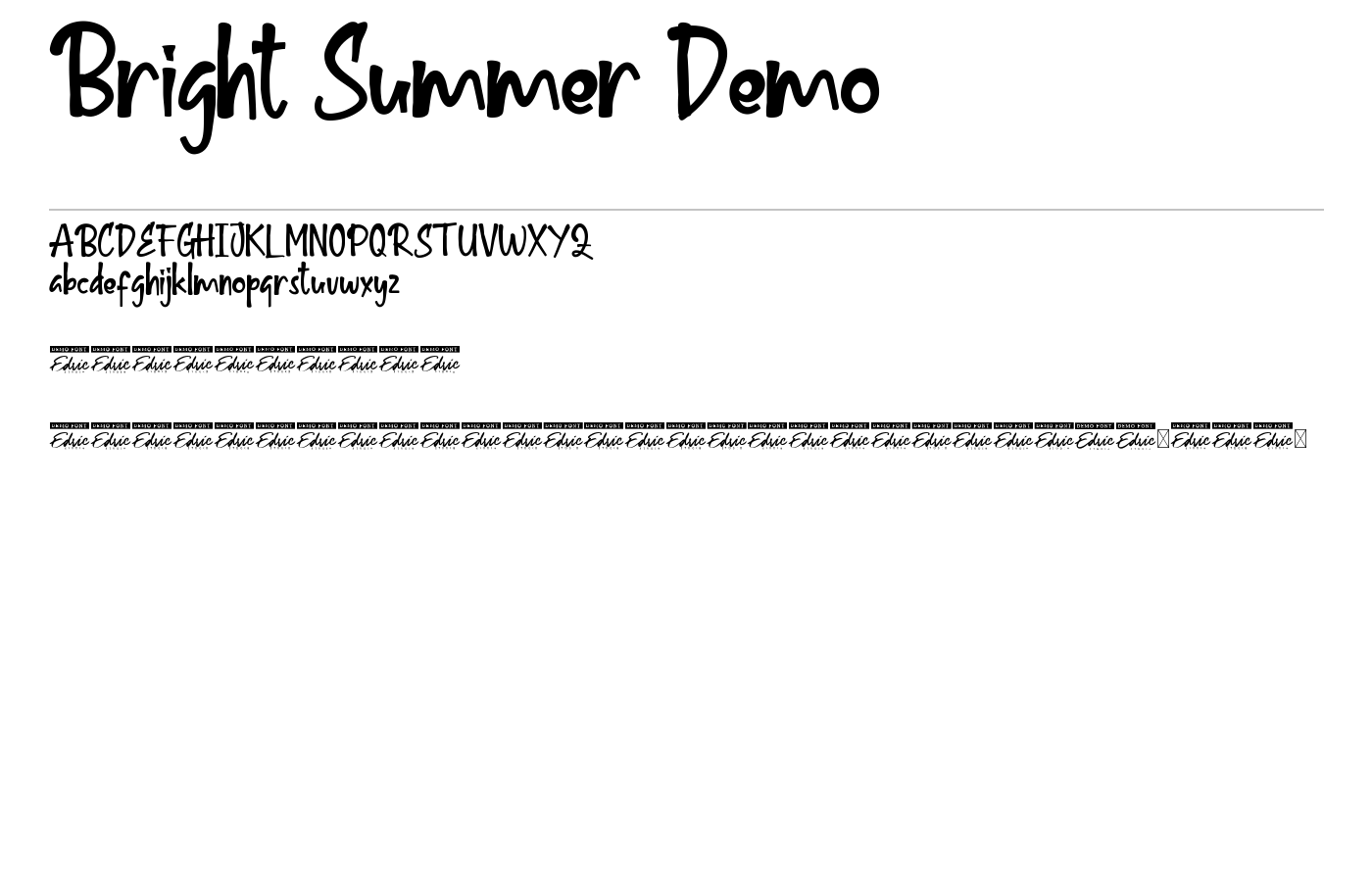
Bright Summer Demo is a playful handwritten font with a casual, friendly vibe, featuring irregular strokes and a warm, informal style. Its tall, narrow letterforms and slight variations in thickness give it an energetic feel, making it ideal for creative projects, children’s materials, and casual branding that seeks a personal touch. This font works well in headlines, logos, and invitations where a relaxed and approachable look is desired.
Bright Summer Demo Font
About Bright Summer Demo Font
| Designer | Widiyanti & Sarah SP |